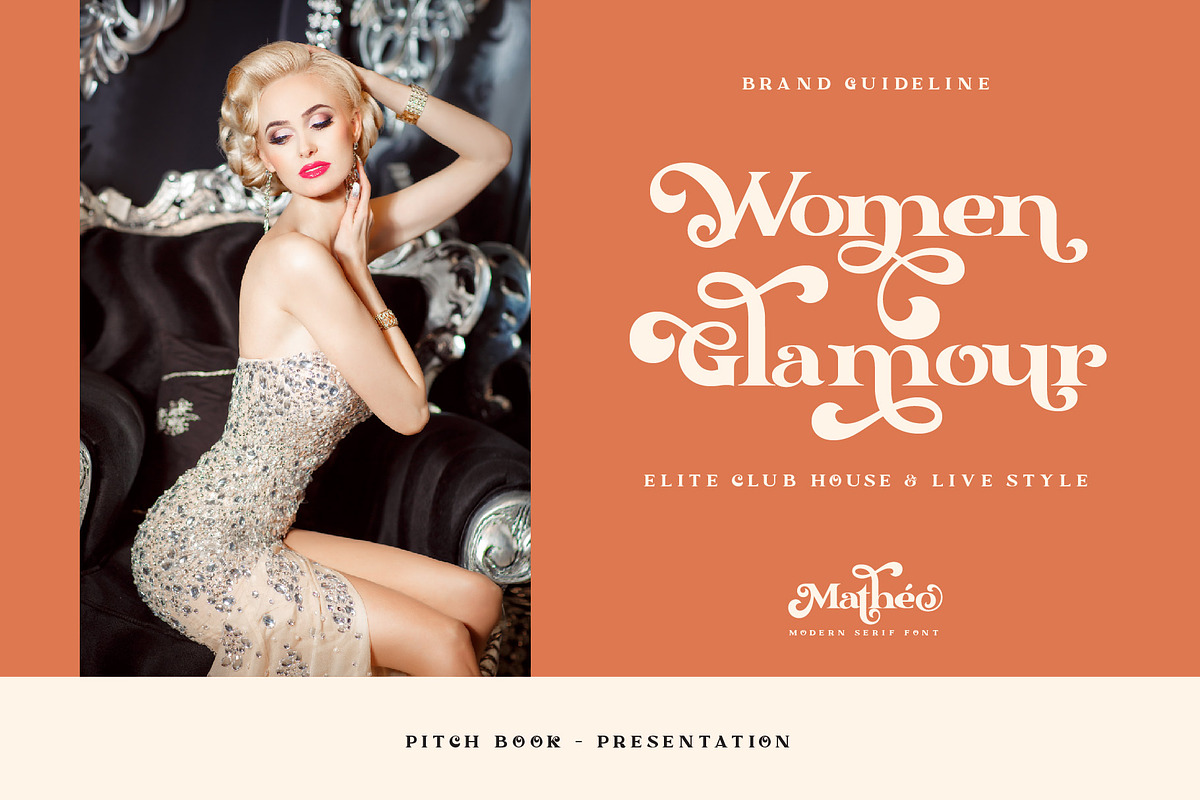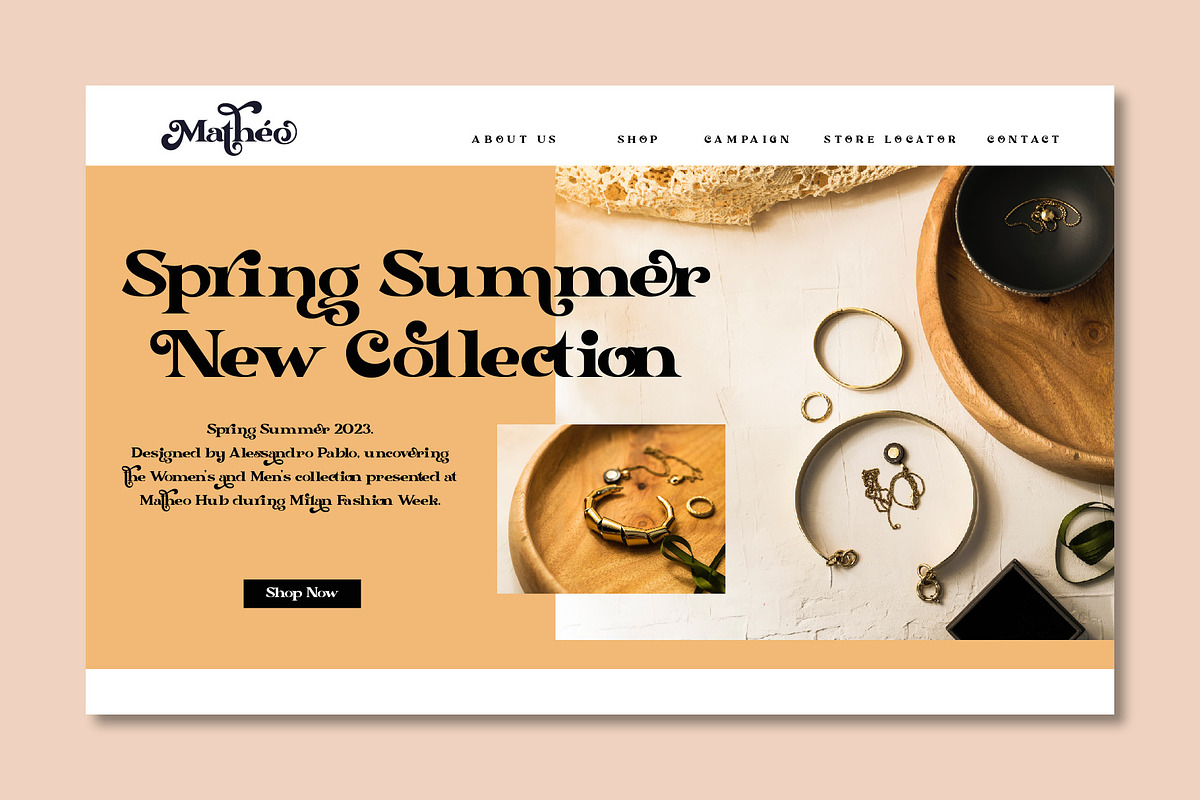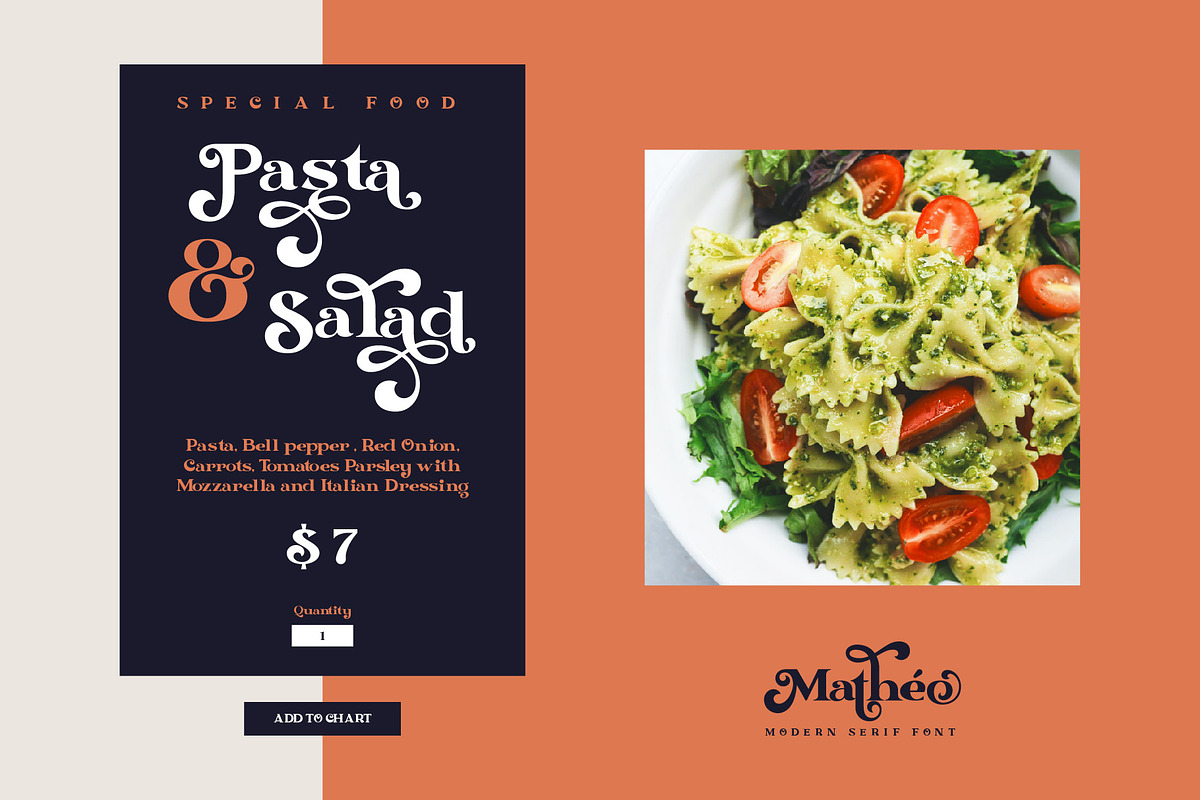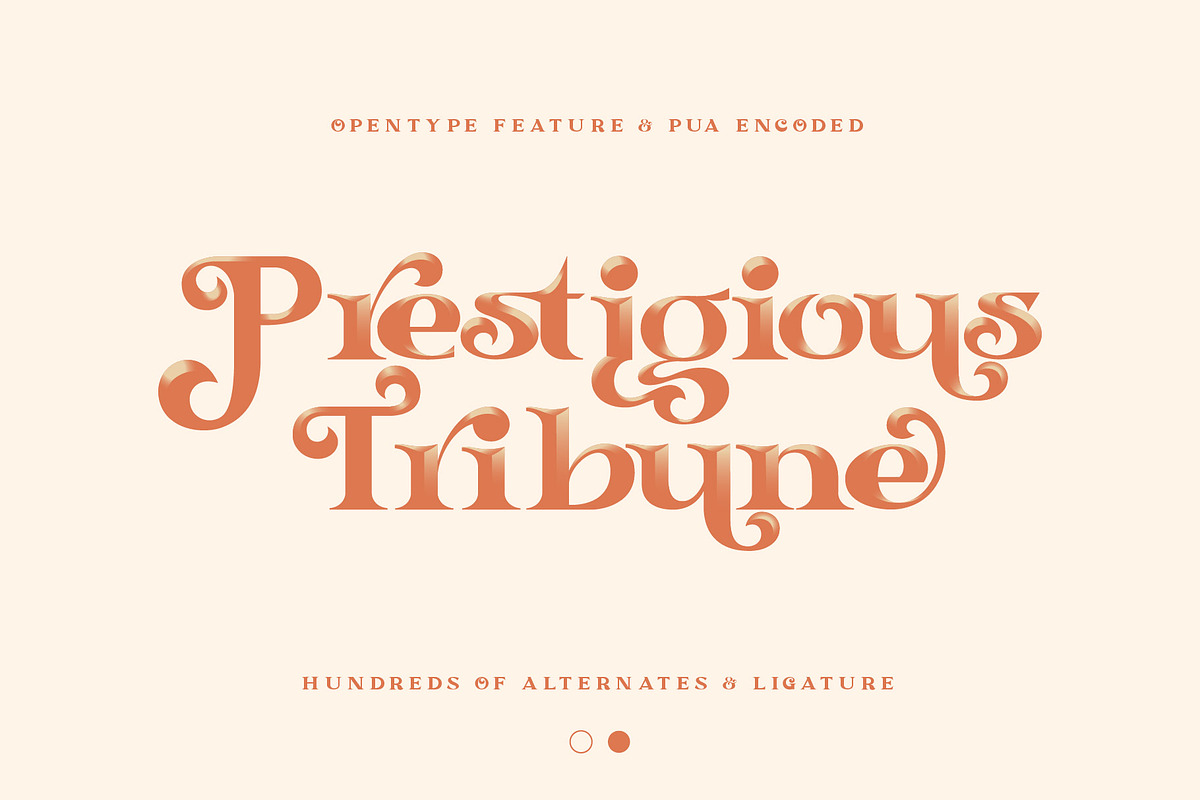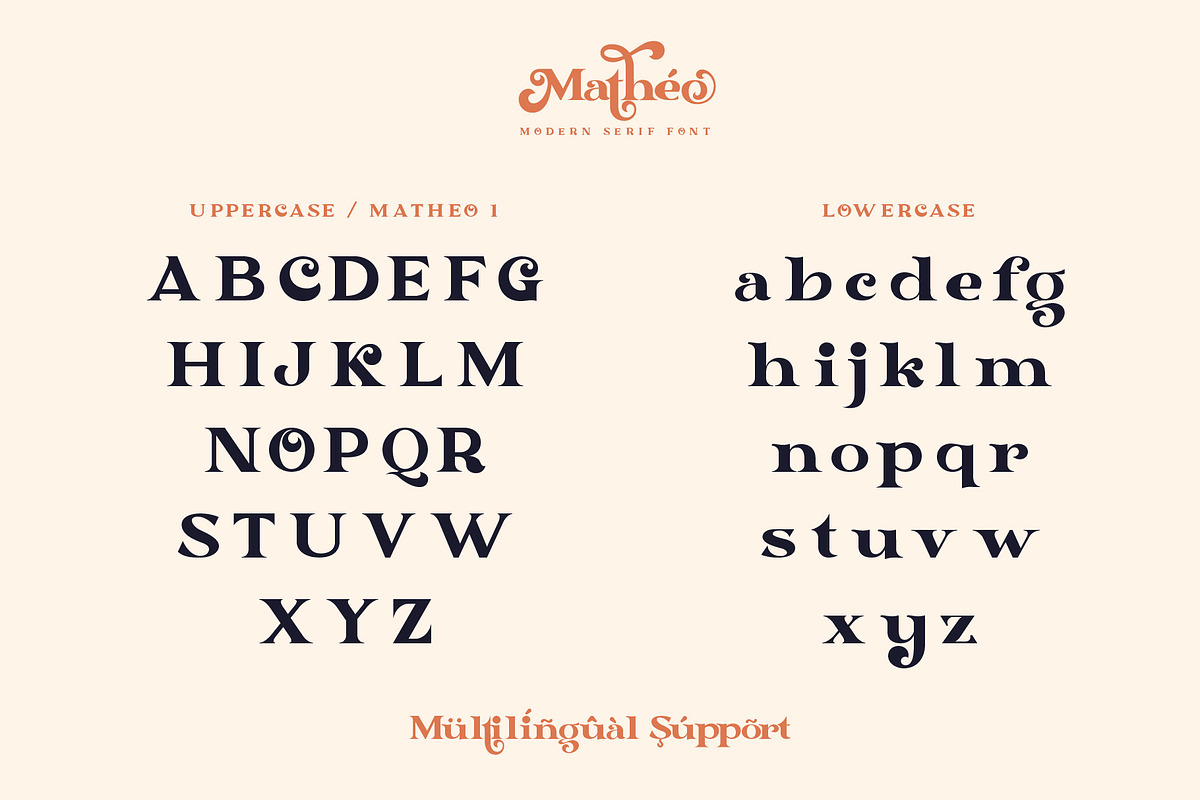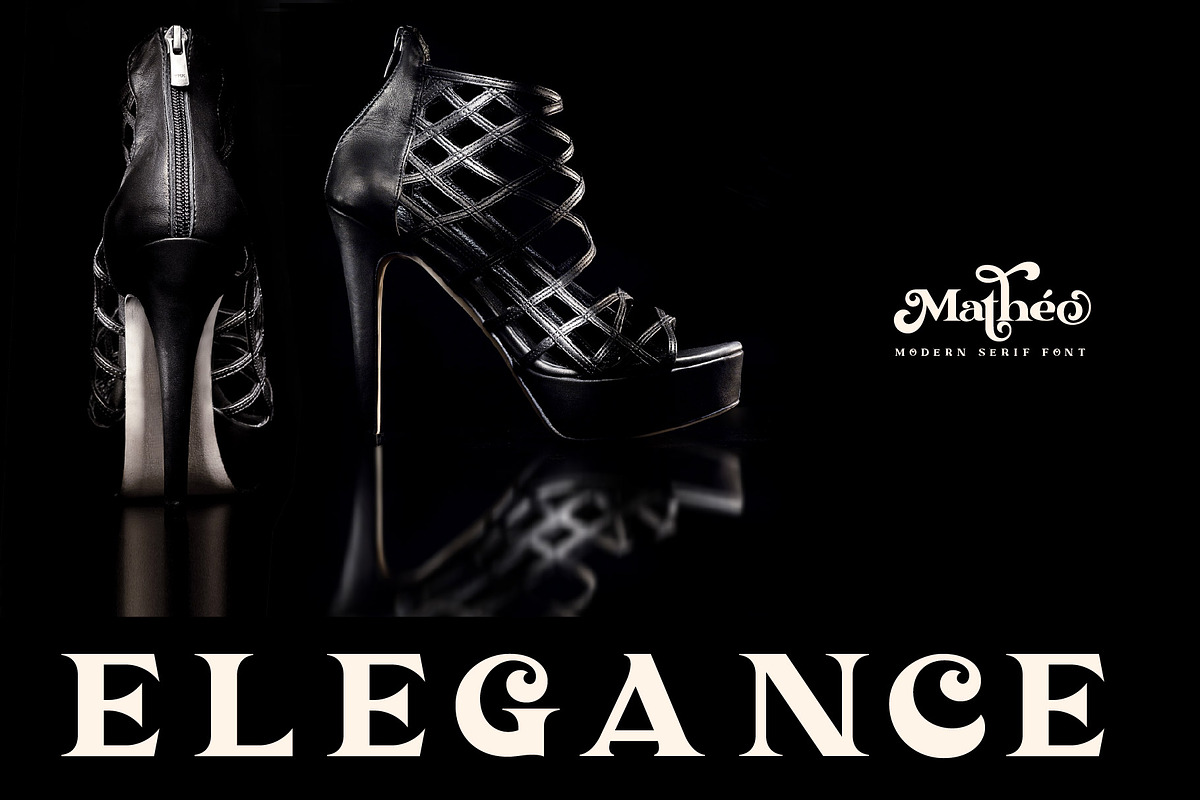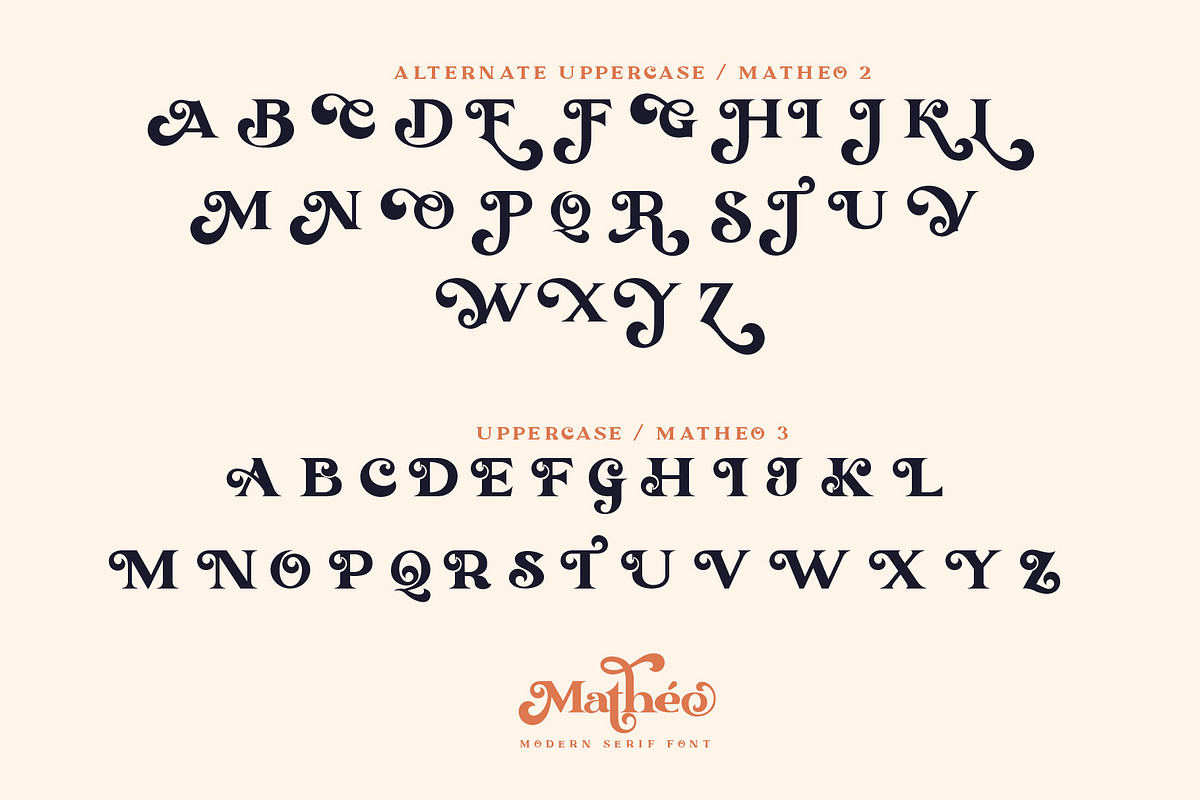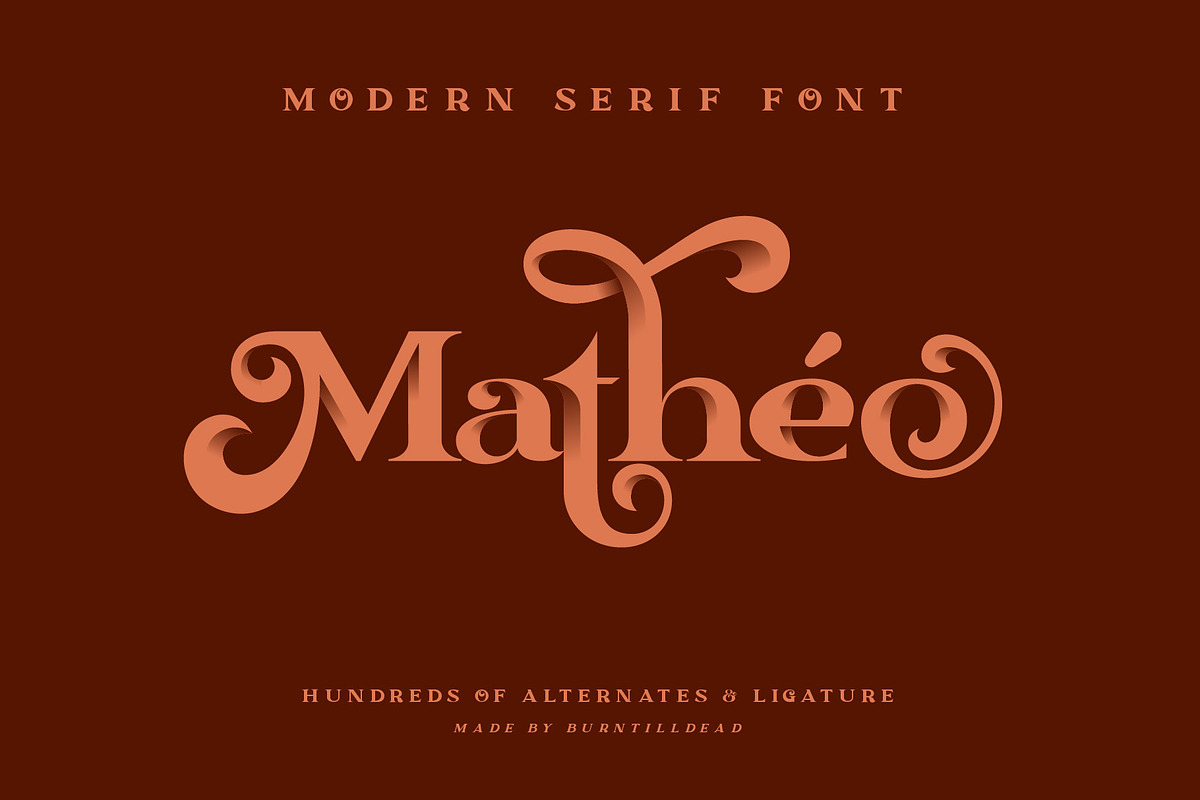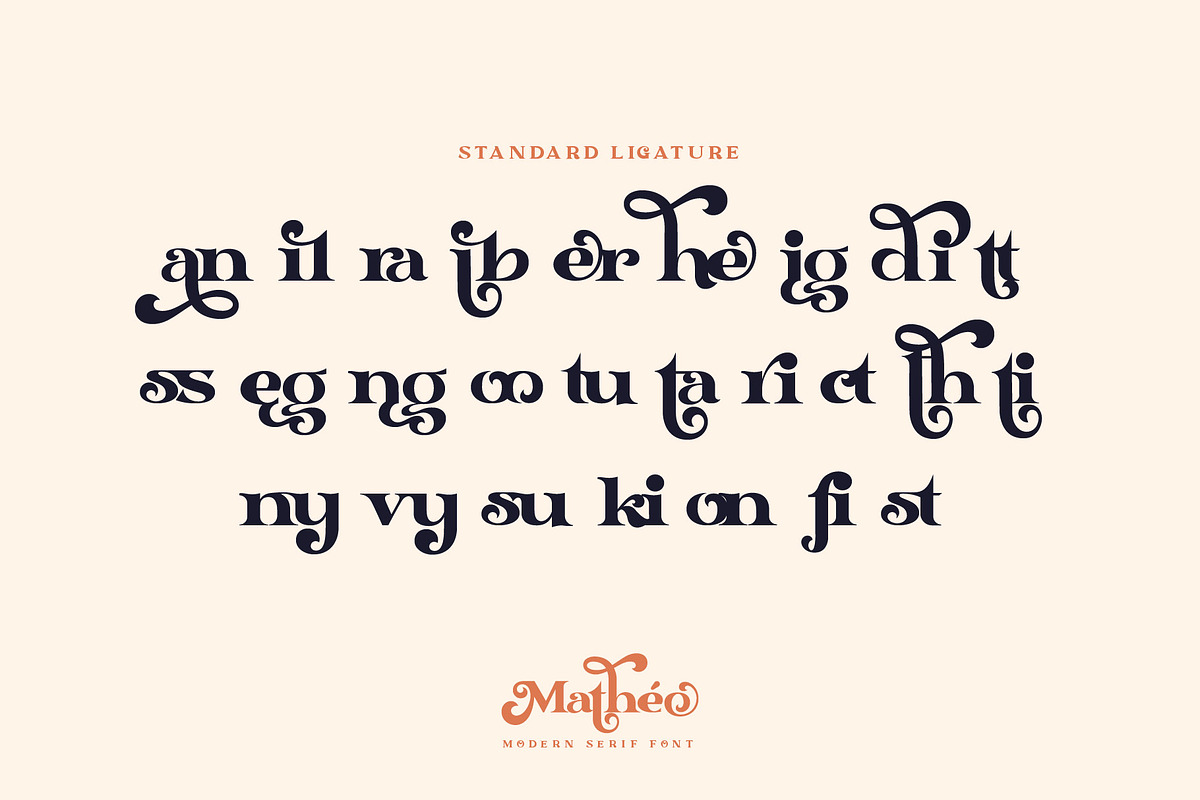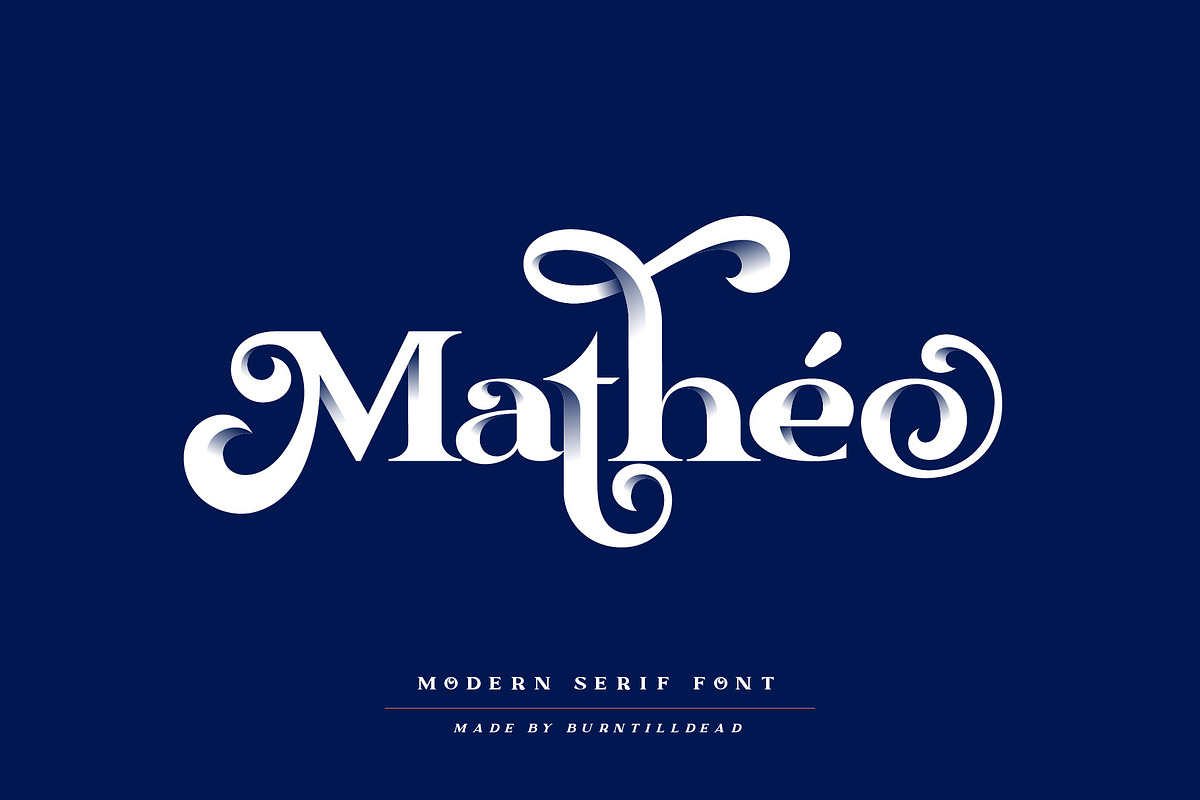
Matheo
Proudley present “Matheo” a modern serif font. Powered with +140 alternate characters & 26 ligature. Really easy to use & bring standout looks once you play with the combination.
We also add "Matheo 2" & "Matheo 3" incase your App or software doesn't support glyph panel.
Perfect and suitable for branding, headline, logotype, sticker, editorial design, and etc.
Multi languages included: Afrikaans, Albanian, Asu, Basque, Bemba, Bena, Cebuano, Chiga, Cornish, Corsican, Danish, Embu, English, Estonian, Filipino, Finnish, French, Friulian, Galician, German, Gusii, Ido, Indonesian, Interlingua, Irish, Italian, Javanese, Jju, Kabuverdianu, Kalaallisut, Kalenjin, Kamba, Kikuyu, Kinyarwanda, Kurdish, Lojban, Low German, Luo, Luxembourgish, Luyia, Machame, Makhuwa-Meetto, Makonde, Malagasy, Malay, Manx, Meru, Morisyen, North Ndebele, Northern Sotho, Norwegian Bokmål, Norwegian Nynorsk, Nyanja, Nyankole, Occitan, Oromo, Portuguese, Romansh, Rombo, Rundi, Rwa, Samburu, Sango, Sangu, Sardinian, Scottish Gaelic, Sena, Shambala, Shona, Slovenian, Soga, Somali, South Ndebele, Southern Sotho, Spanish, Swahili, Swati, Swedish, Swiss German, Taita, Taroko, Teso, Tsonga, Tswana, Turkmen, Vunjo, Walloon, Walser, Xhosa, Zulu
A-Z Character Set
a-z Characters set
Numerals & Punctuations (OpenType Standard)
26 ligatures
+140 Alternate Characters